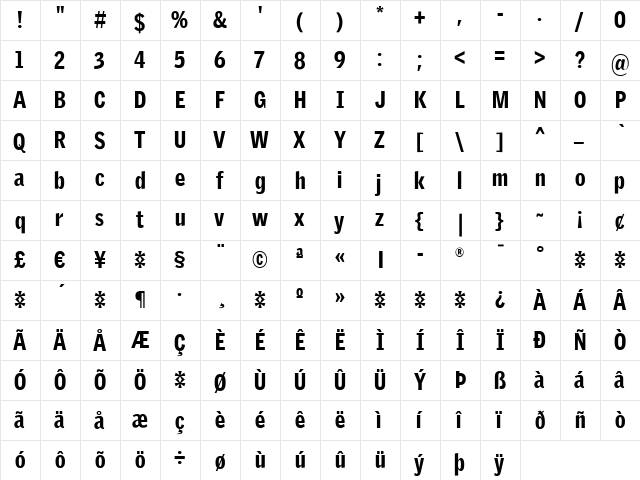
GriffithGothicCond Regular
Design Context for GriffithGothicCond Typeface
GriffithGothicCond takes a clean, functional approach — its unadorned letterforms prioritise legibility and work reliably across screen and print environments. Its narrow stance lets it pack a punch even in space-constrained designs.
Font Pairing: Works well alongside a characterful serif or display font that can carry the expressive load while GriffithGothicCond handles the functional copy.
Pro Tip: Try GriffithGothicCond in all-caps with moderate tracking for navigation and label copy — it performs well in systematic UI contexts.